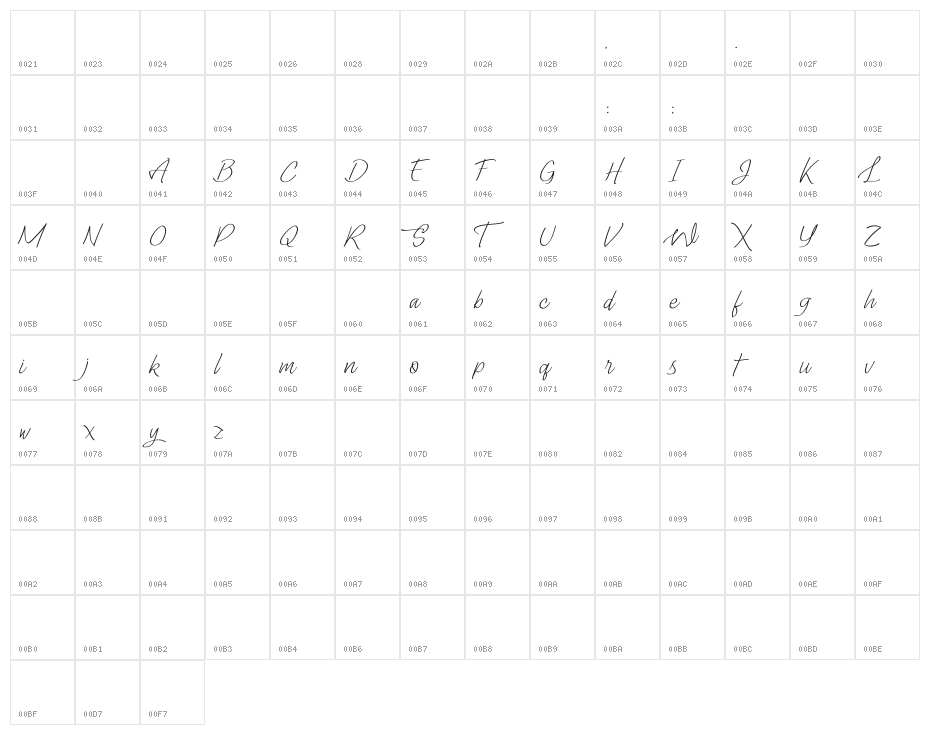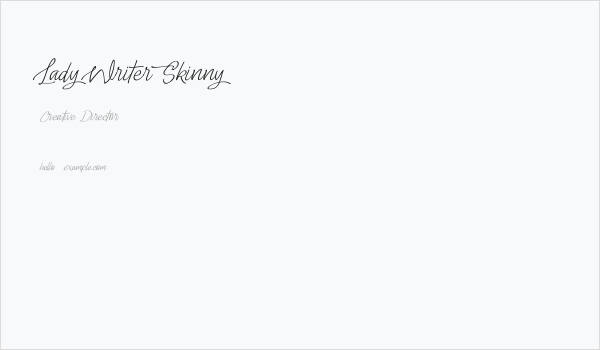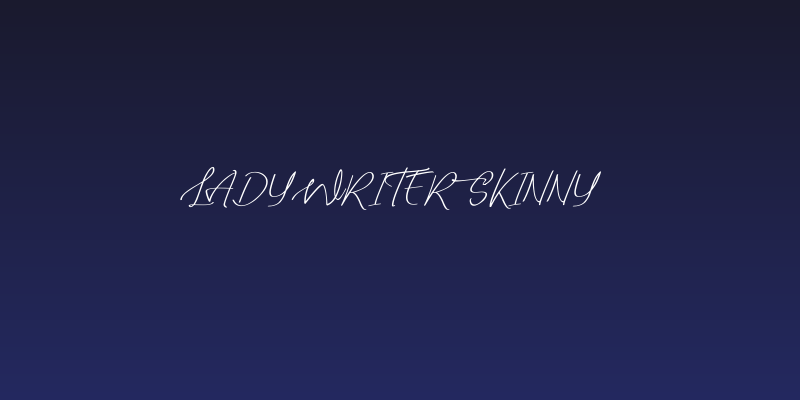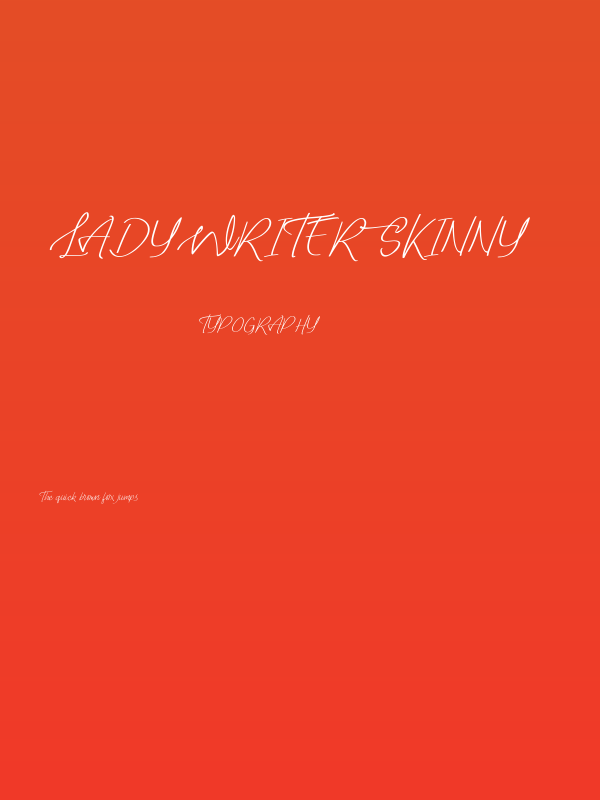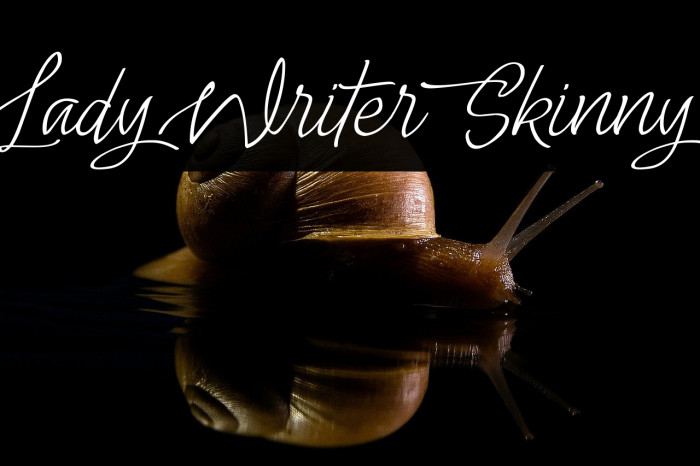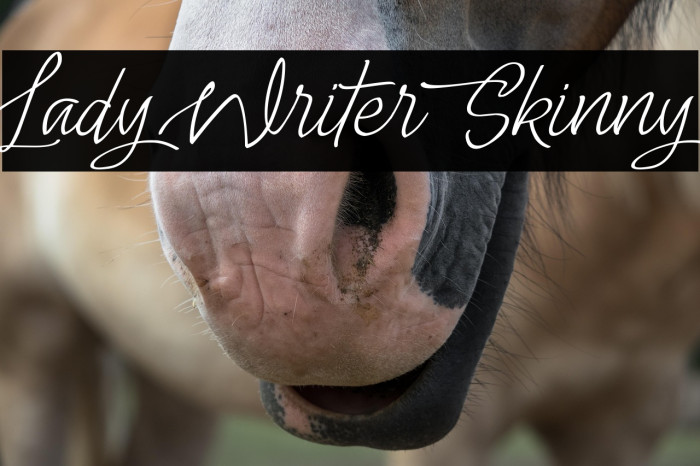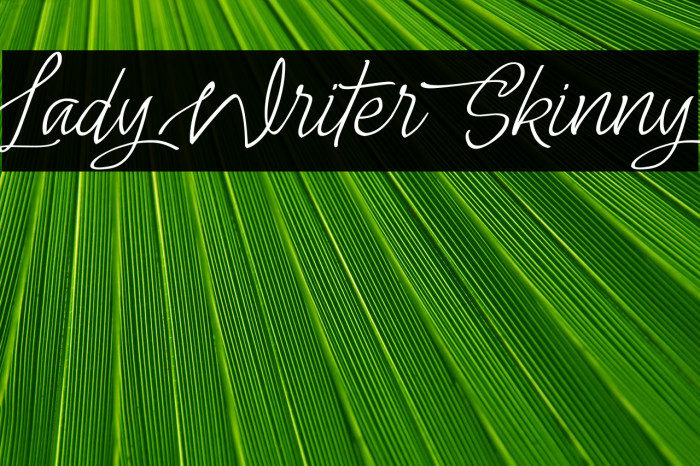
Lady Writer Skinny Font
Lady Writer Skinny Description
This font features an elegant and flowing script style, characterized by its thin, delicate strokes and graceful curves. The letters are interconnected, giving a sense of fluidity and movement, reminiscent of traditional cursive handwriting. The uppercase letters are slightly more elaborate, with extended loops and swirls, while the lowercase letters maintain a consistent and harmonious appearance. The overall design is airy and light, making it suitable for projects that require a touch of sophistication and elegance. The font's slender form and artistic flair make it ideal for creative and decorative purposes.
| Proposed Projects | Wedding invitations, greeting cards, elegant branding, and artistic posters. |